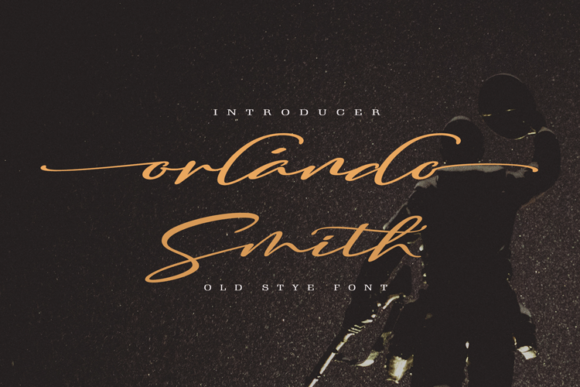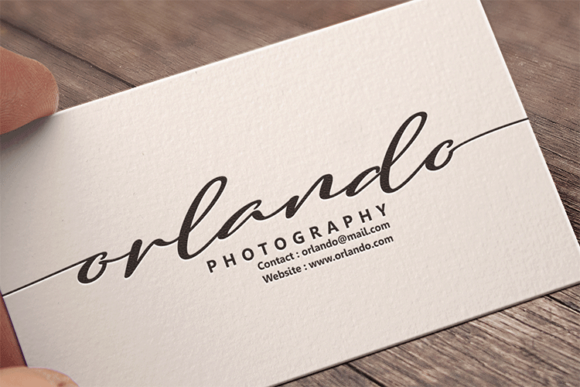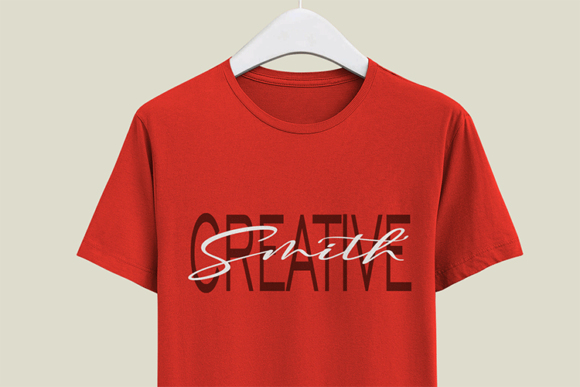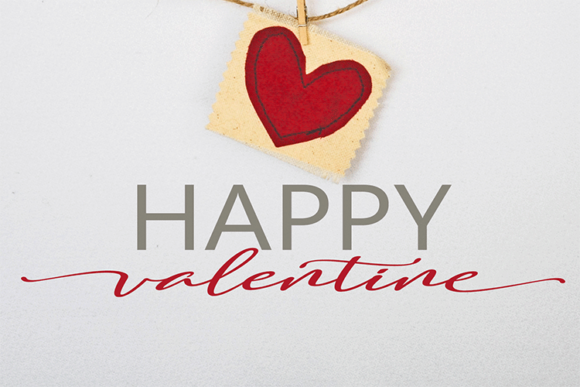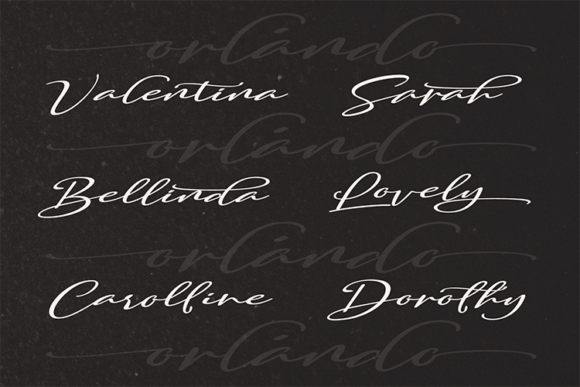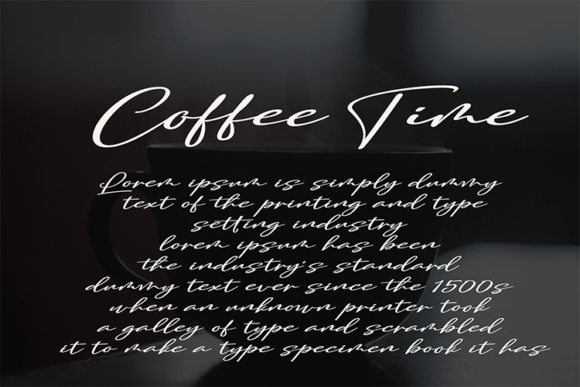
Orlando Smith Font
About Orlando Smith Font
Orlando Smith is a luxurious script font carefully created with a touch of elegance. This is a beautiful combination of timeless elegance and authentic calligraphy. It features an incredibly classic style, while still keeping a friendly feel. Orlando Smith is the perfect font for making original and outstanding designs.